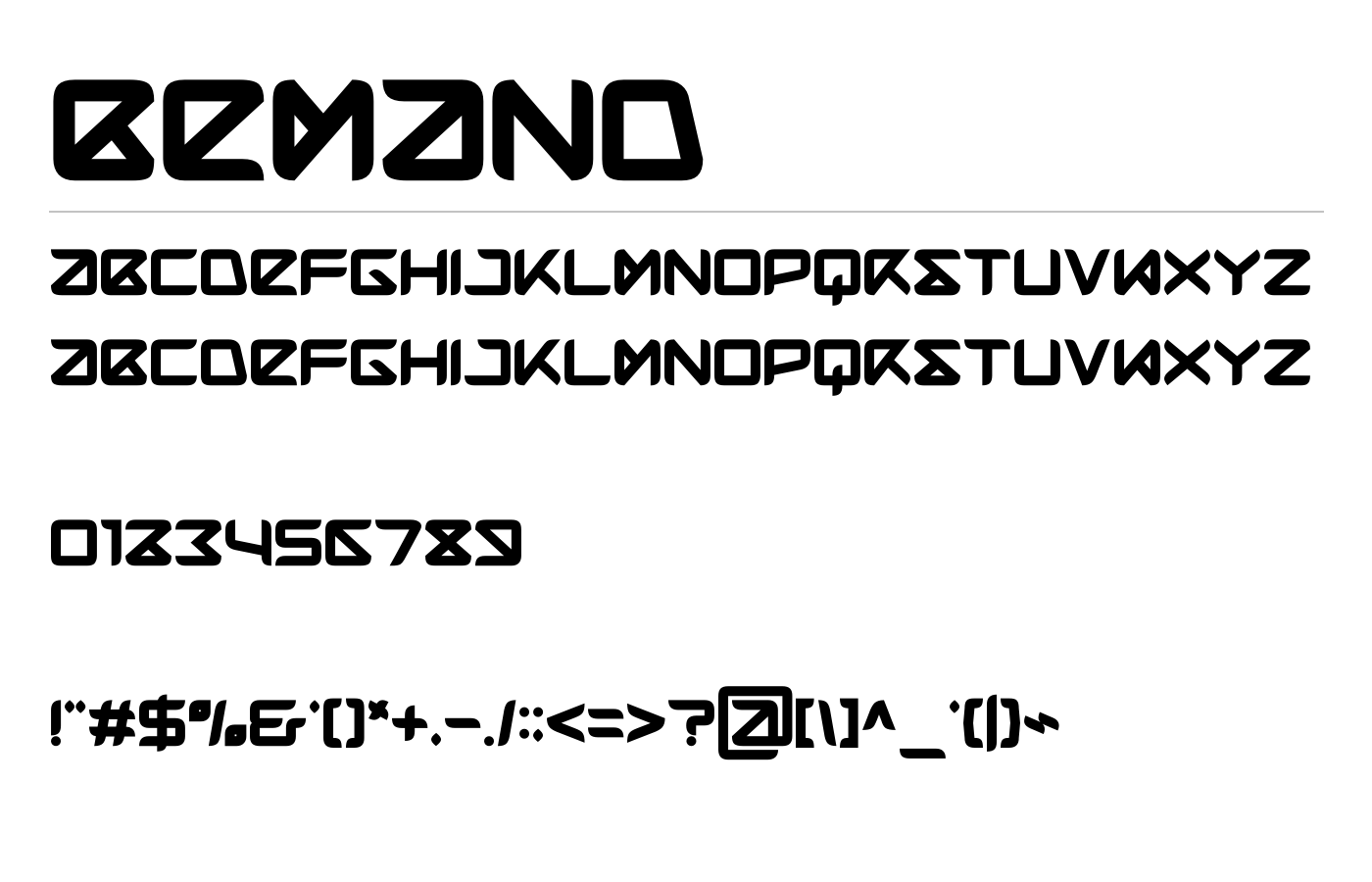
Bemand is a bold, futuristic sans serif font with a strong geometric structure and unique angular cuts that give it a tech-inspired, modern feel. Its compact and uniform letterforms with high x-height make it ideal for striking headlines, logos, and branding that aim to stand out with a distinctive, forward-thinking personality. This font works well in creative and digital contexts where a sleek, cutting-edge look is desired.
Bemand Font
About Bemand Font